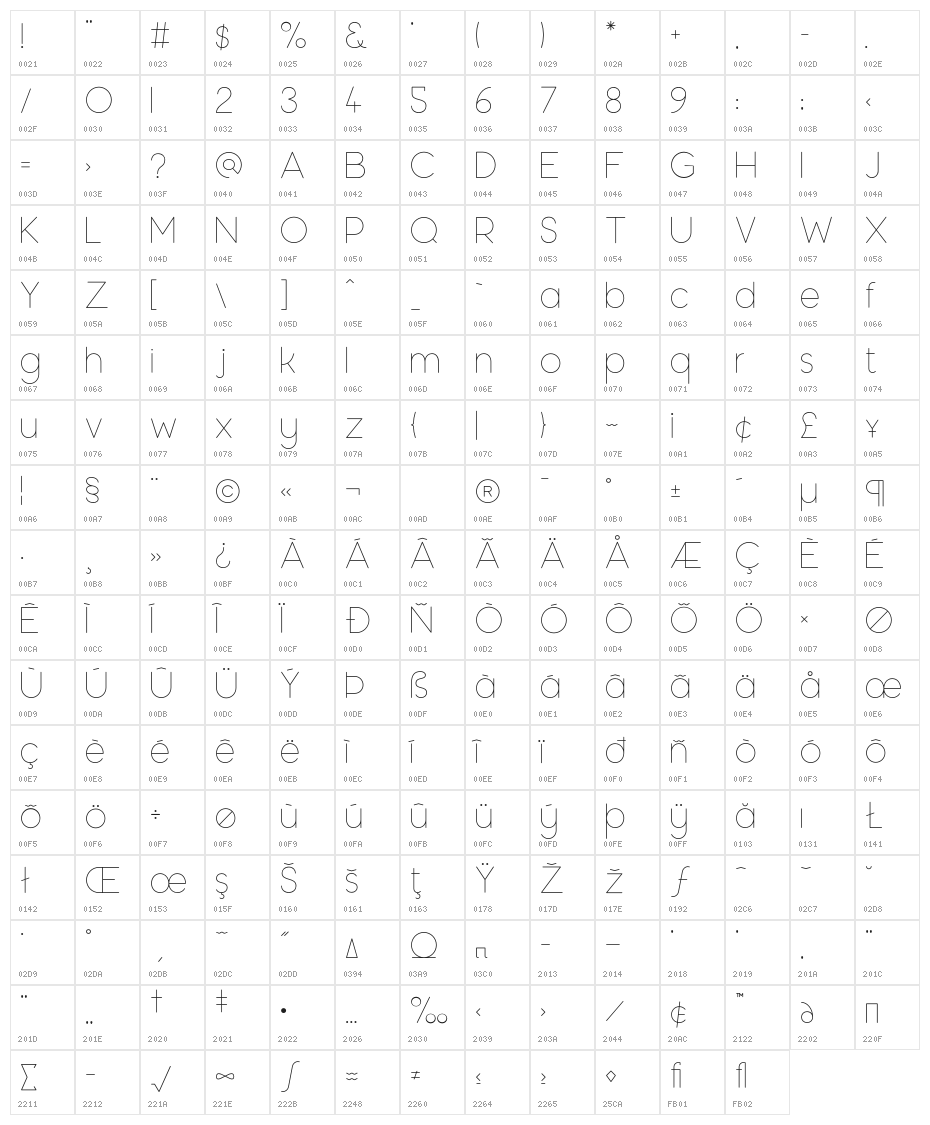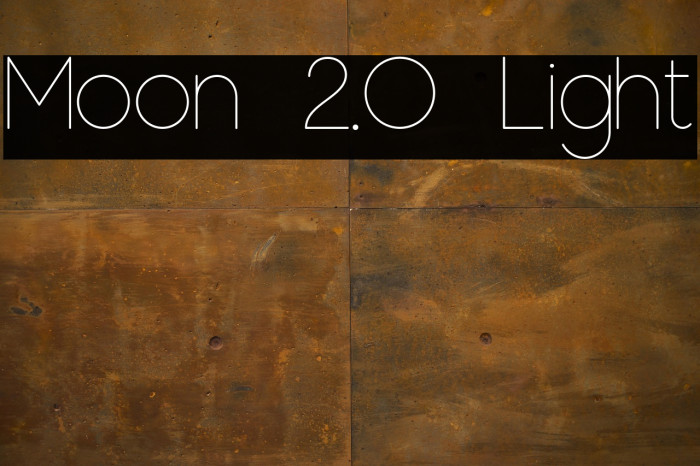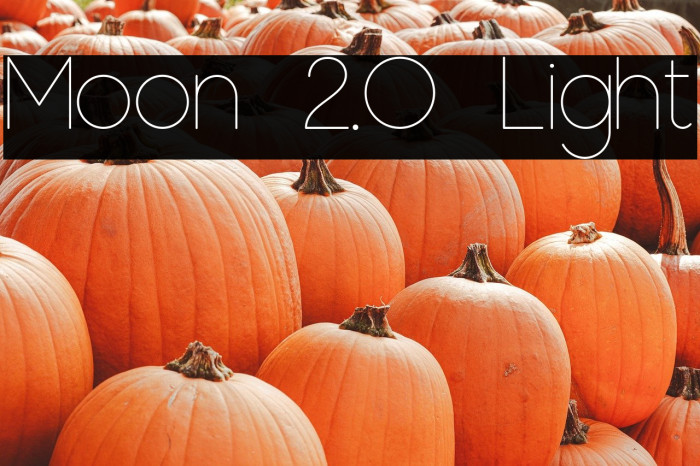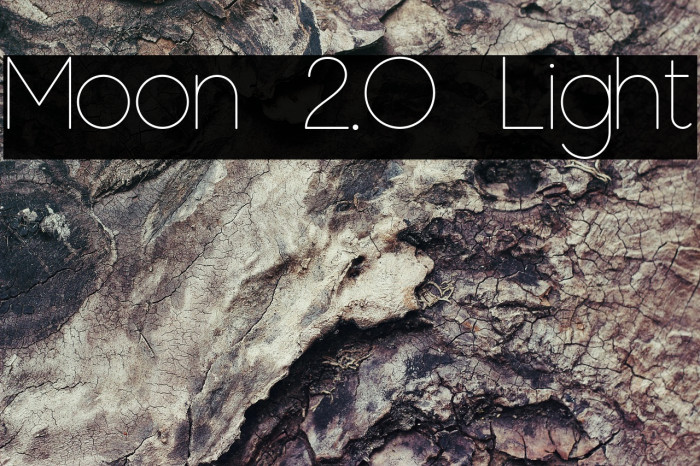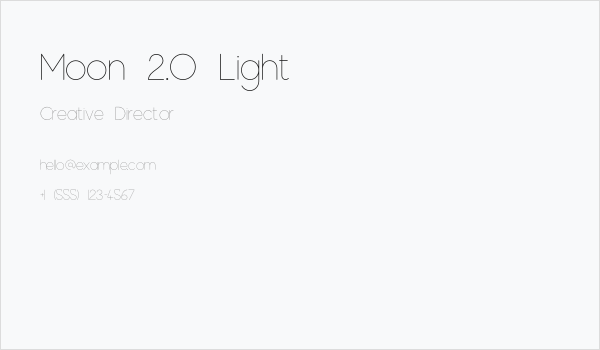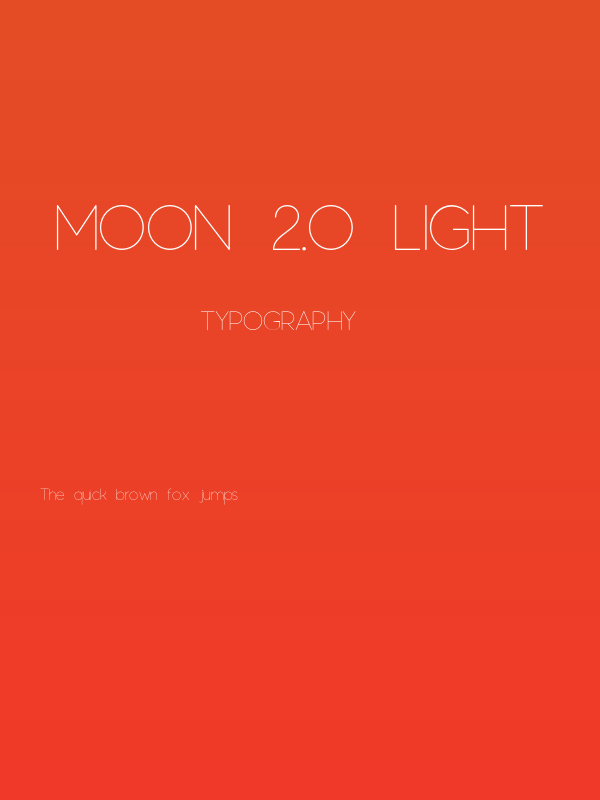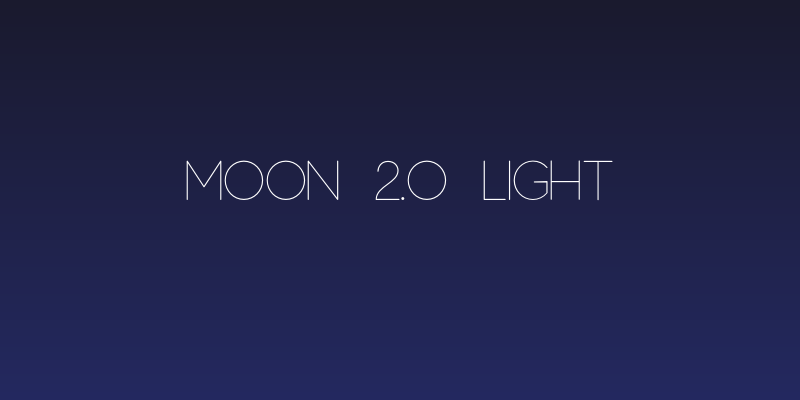
Moon 2.0 Light Font
Moon 2.0 Light Description
This font features a clean, geometric design with a modern and minimalist aesthetic. The characters are constructed with uniform line weights, creating a harmonious and balanced appearance. The circular forms and straight lines give it a futuristic and sleek look, making it ideal for contemporary design projects. The uppercase and lowercase letters maintain a consistent style, while the numerals and special characters complement the overall design. Its simplicity and elegance make it versatile for various applications.